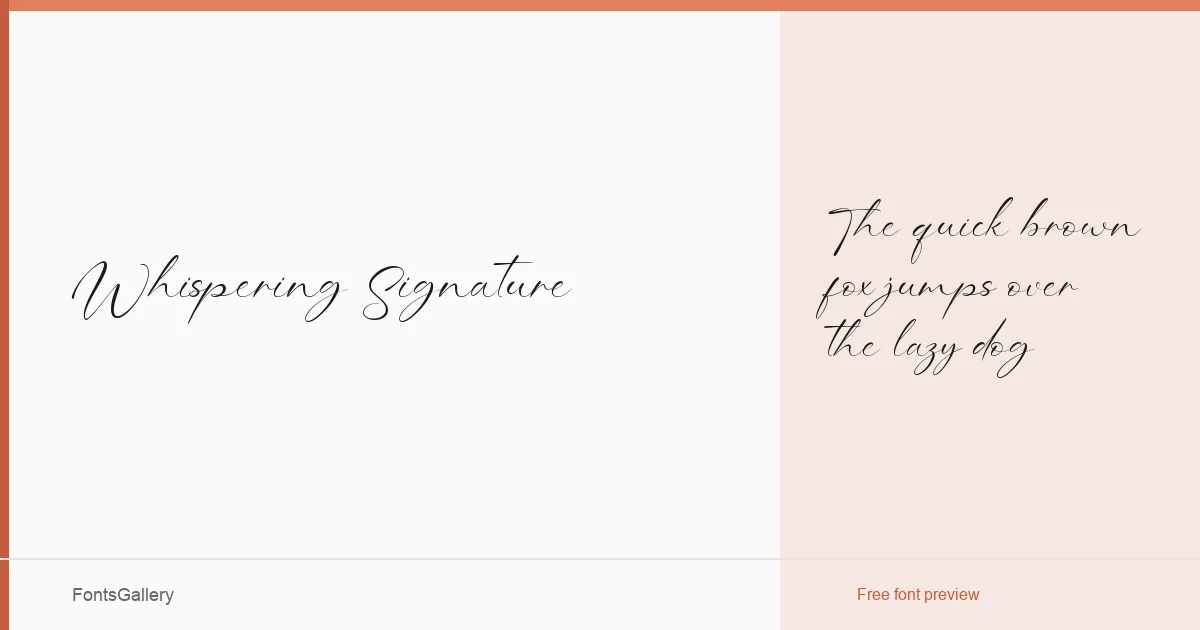
About Whispering Signature Font
Whispering Signature is an elegant script typeface crafted by Letterara, designed to evoke a sense of luxury, romance, and timeless sophistication. Its flowing, signature-inspired letterforms make it an ideal choice for projects that demand a refined and classic aesthetic. Whether used in personal or professional creative contexts, this font carries an air of grace that elevates any design it touches.
Whispering Signature features the sweeping, fluid strokes characteristic of fine calligraphic script, lending each letterform a handcrafted, romantic quality. The elegant curves and classic proportions evoke the look of a carefully penned personal signature, balancing luxury with warmth. Its style is both polished and intimate, making it a strong visual statement in any context where sophistication is paramount.
Whispering Signature shines in applications such as logos, wedding stationery, invitation cards, greeting cards, and certificates, where an elevated and romantic tone is essential. Its expressive character pairs beautifully with the clean, structured simplicity of Helvetica for a classic luxury contrast, or alongside Aresink for a more cohesive and stylistically harmonious pairing.